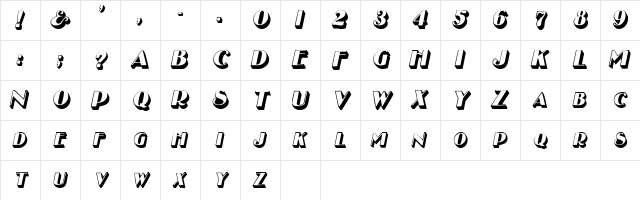
DuxburyShadowSCapsSSK Italic
Design Context for DuxburyShadowSCapsSSK Typeface
DuxburyShadowSCapsSSK is built around its visual character rather than neutral utility — its distinctive forms are designed to make an impression at display sizes. The slanted form adds forward momentum and visual energy.
Font Pairing: Pair with a clean neutral sans-serif for body copy to let DuxburyShadowSCapsSSK's character lead without overwhelming the composition.
Pro Tip: Treat DuxburyShadowSCapsSSK as the centrepiece of your typographic hierarchy. One strong heading set in a decorative face can carry an entire layout.